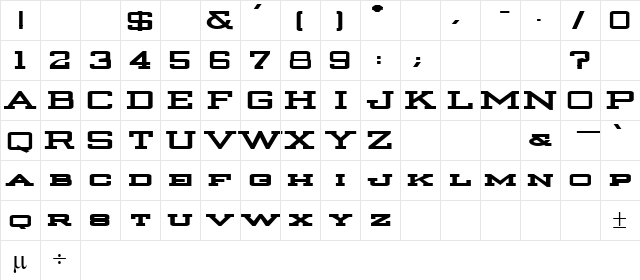
Bidwell Bold Regular
Design Context for Bidwell Bold Typeface
Bidwell Bold takes a measured approach to typography — its balanced proportions and neutral character make it a reliable workhorse for both digital and print work. The heavy weight commands attention and anchors typographic hierarchies.